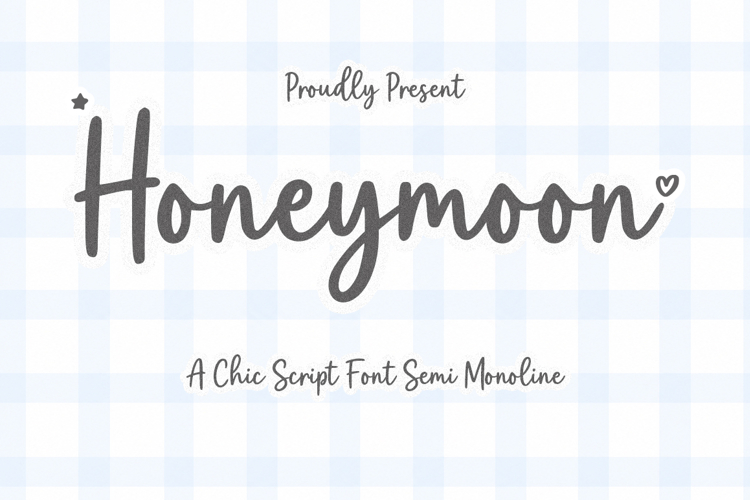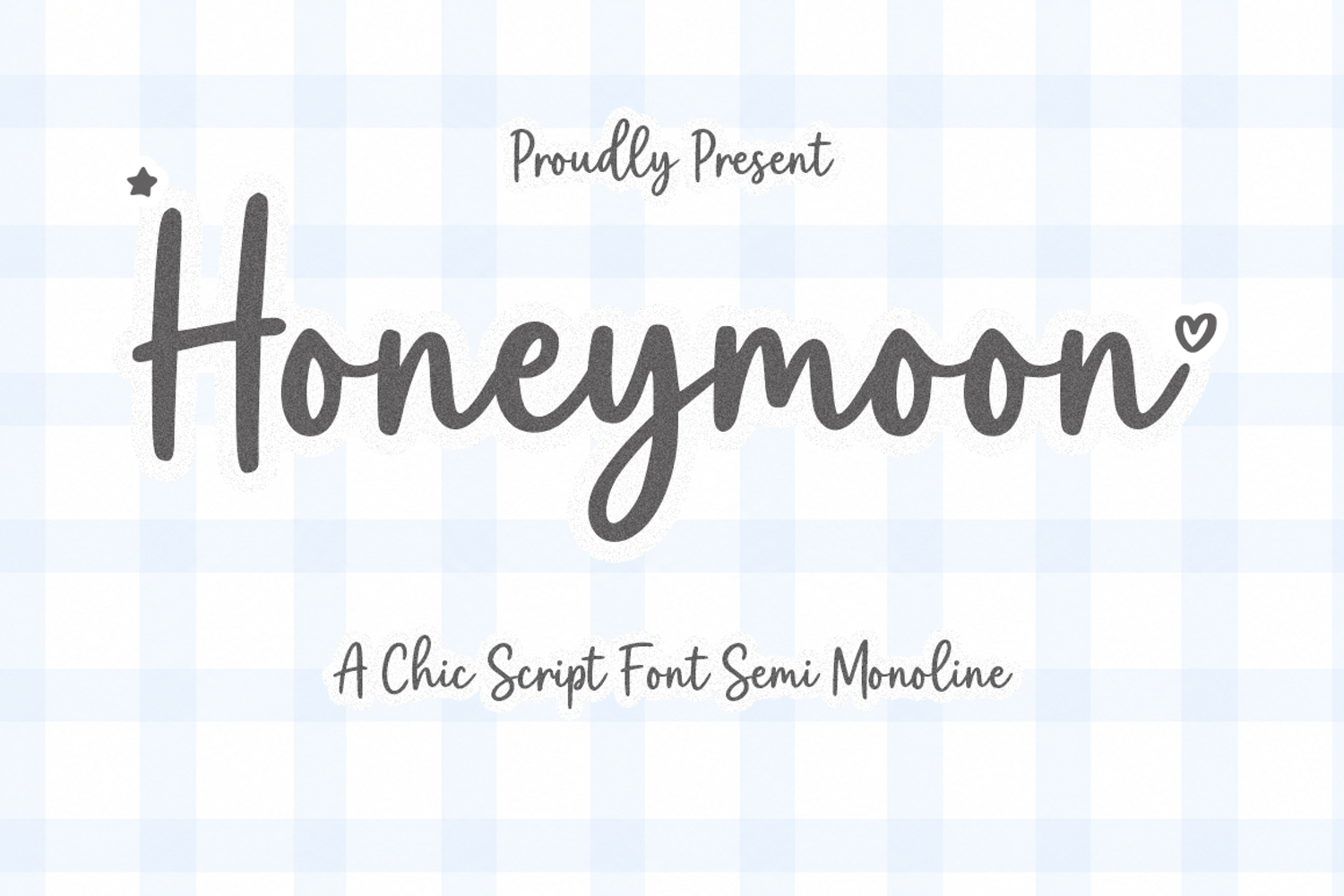
Honeymoon
Honeymoon is a semi-monoline script font that captures a chic, romantic, and effortlessly stylish feel. Designed with graceful strokes and subtle handcrafted nuances, this font brings a soft elegance while maintaining a modern and playful personality. Its balanced curves and smooth flow create a natural handwritten look, enhanced with delicate imperfections that add warmth and authenticity.
Carefully crafted to achieve harmony between fluid motion and clean spacing, Honeymoon offers excellent readability across both digital and print designs. The gentle rhythm of each letter evokes a sense of intimacy and charm, making it perfect for projects that seek a refined yet approachable aesthetic.
Honeymoon shines across a wide range of creative applications—from branding and logo design, wedding invitations, and personalized stationery, to packaging, social media content, and lifestyle visuals. Whether you’re aiming for a romantic, cozy, or sophisticated vibe, this font adds a distinctive touch that feels both elegant and expressive.
More than just a typeface, Honeymoon is a celebration of style and emotion—an artistic expression that brings beauty, personality, and charm into every design it touches